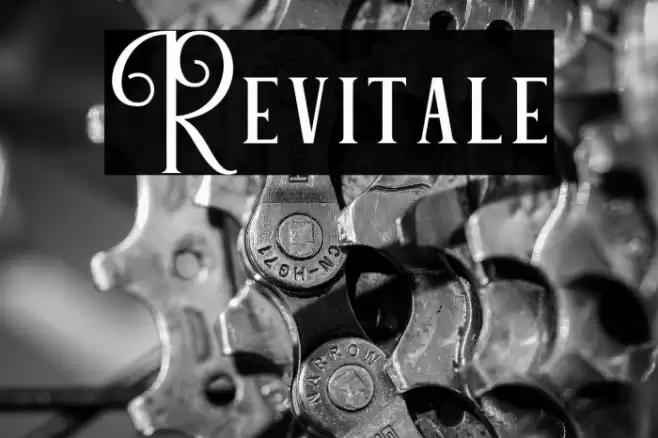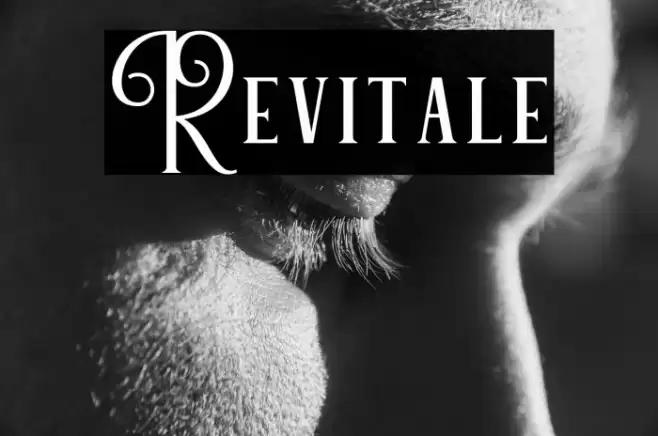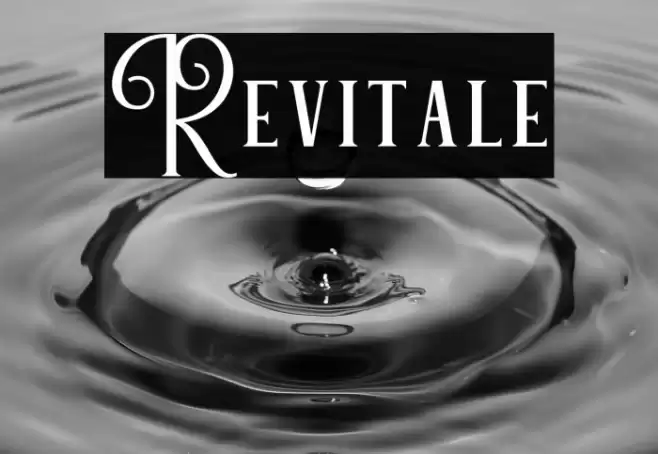
Revitale Font
Revitale Description
This font features a unique blend of decorative and serif styles. The uppercase letters are adorned with intricate flourishes, giving them an elegant and artistic appearance. The lowercase letters maintain a more traditional serif style, providing a nice contrast to the ornate capitals. The numerals are bold and clear, ensuring readability. Special characters are designed with a similar decorative flair, making them stand out. This font is perfect for projects that require a touch of sophistication and creativity.
A decorative serif font with ornate uppercase letters and clear numerals from Regular fonts.
- Font: Revitale
- Proposed Projects: Ideal for wedding invitations, luxury branding, artistic posters, and elegant book covers.